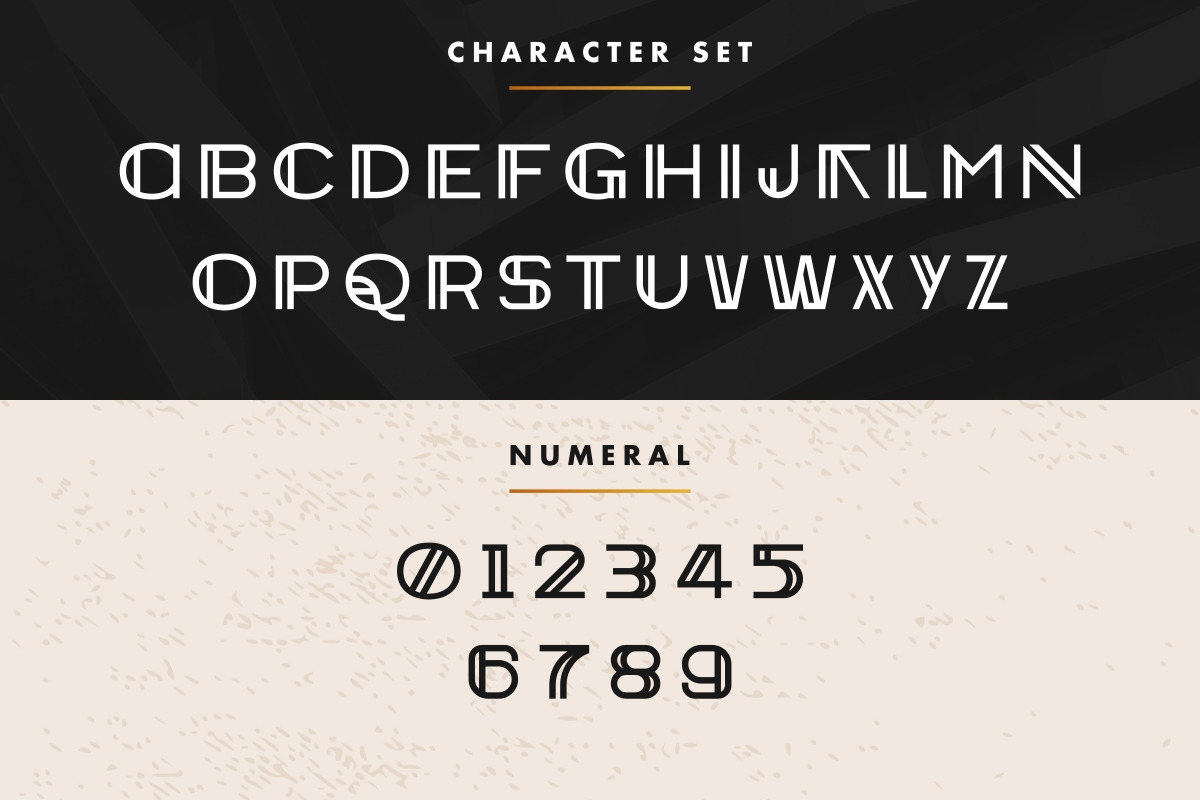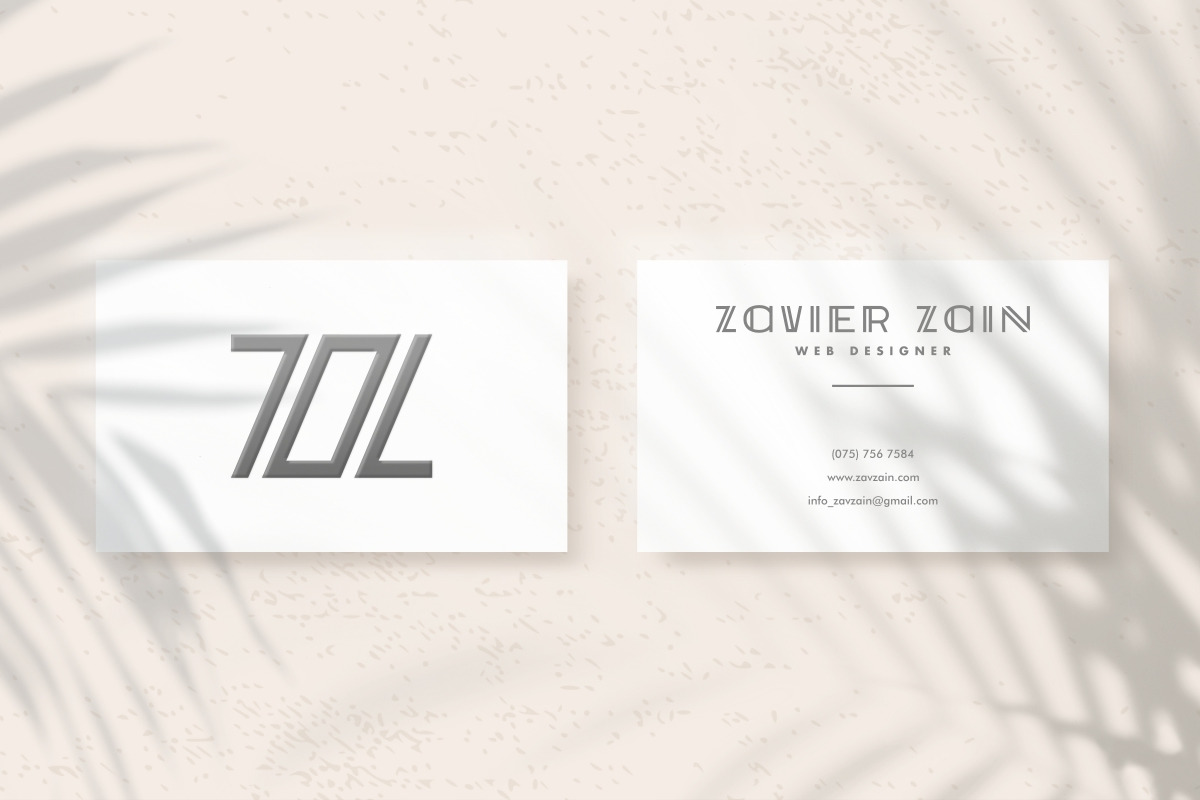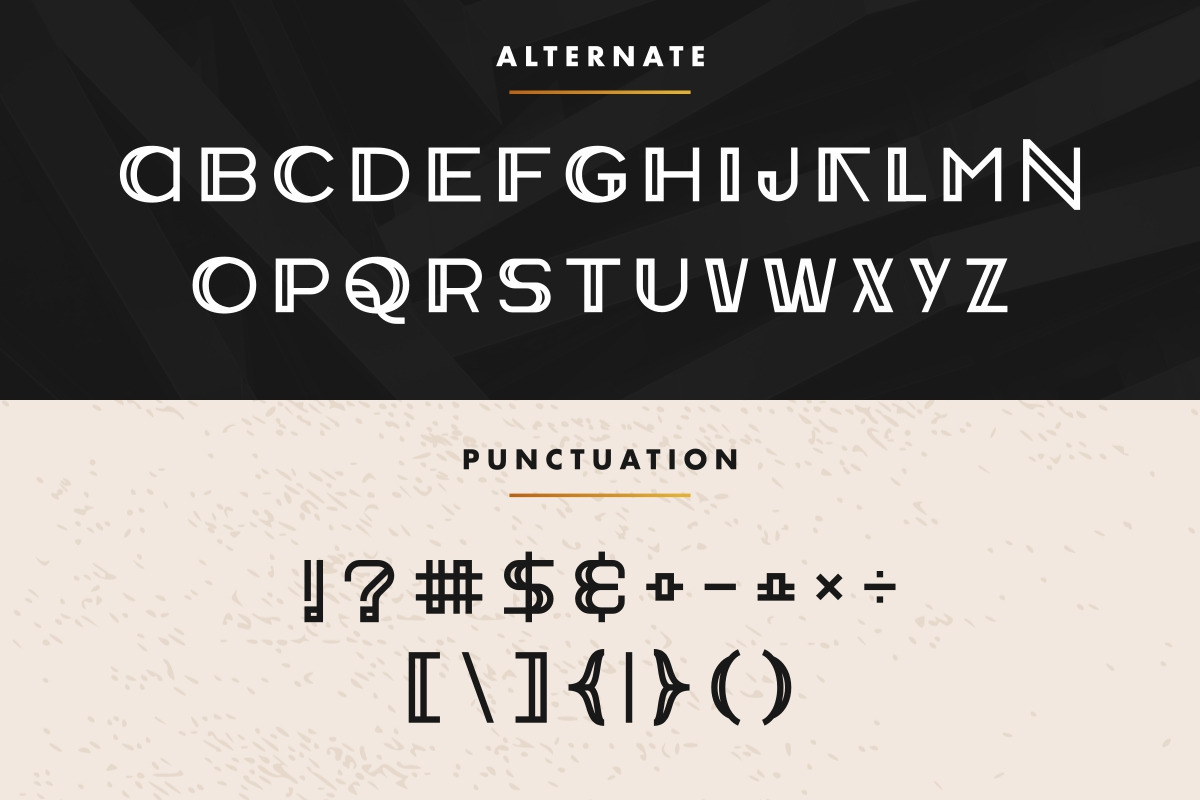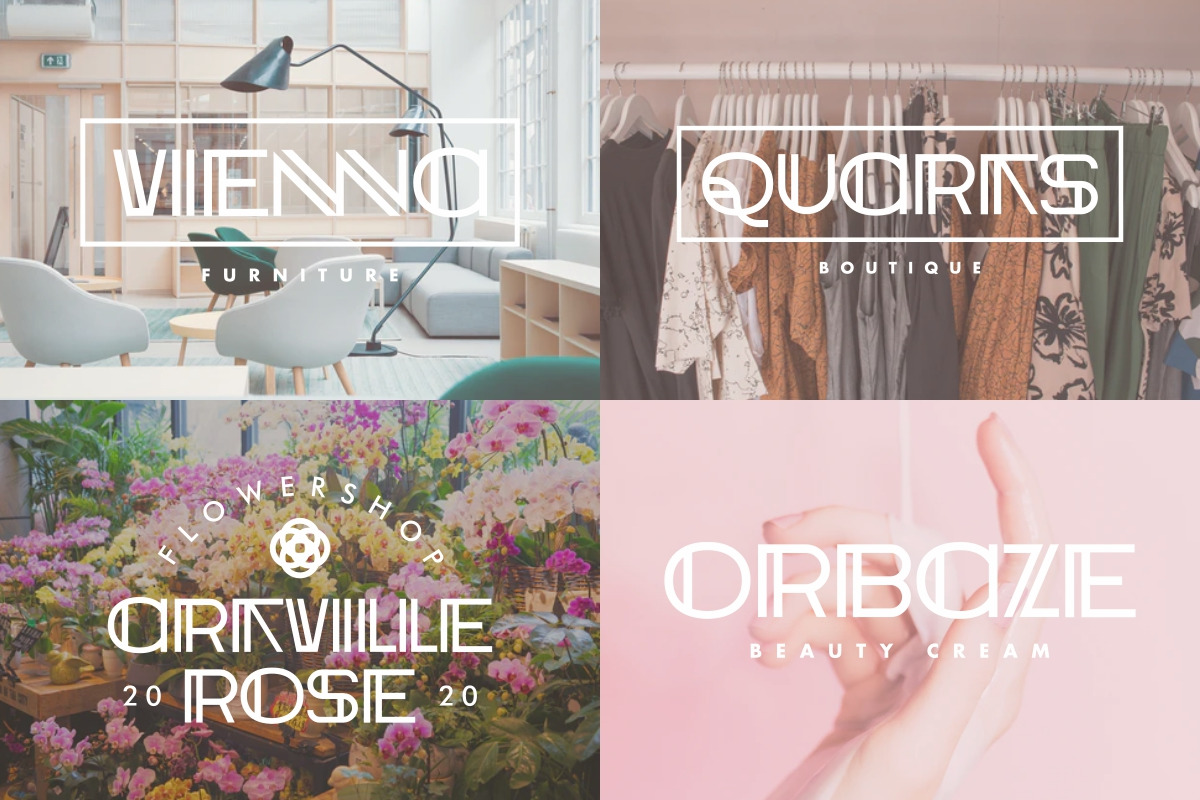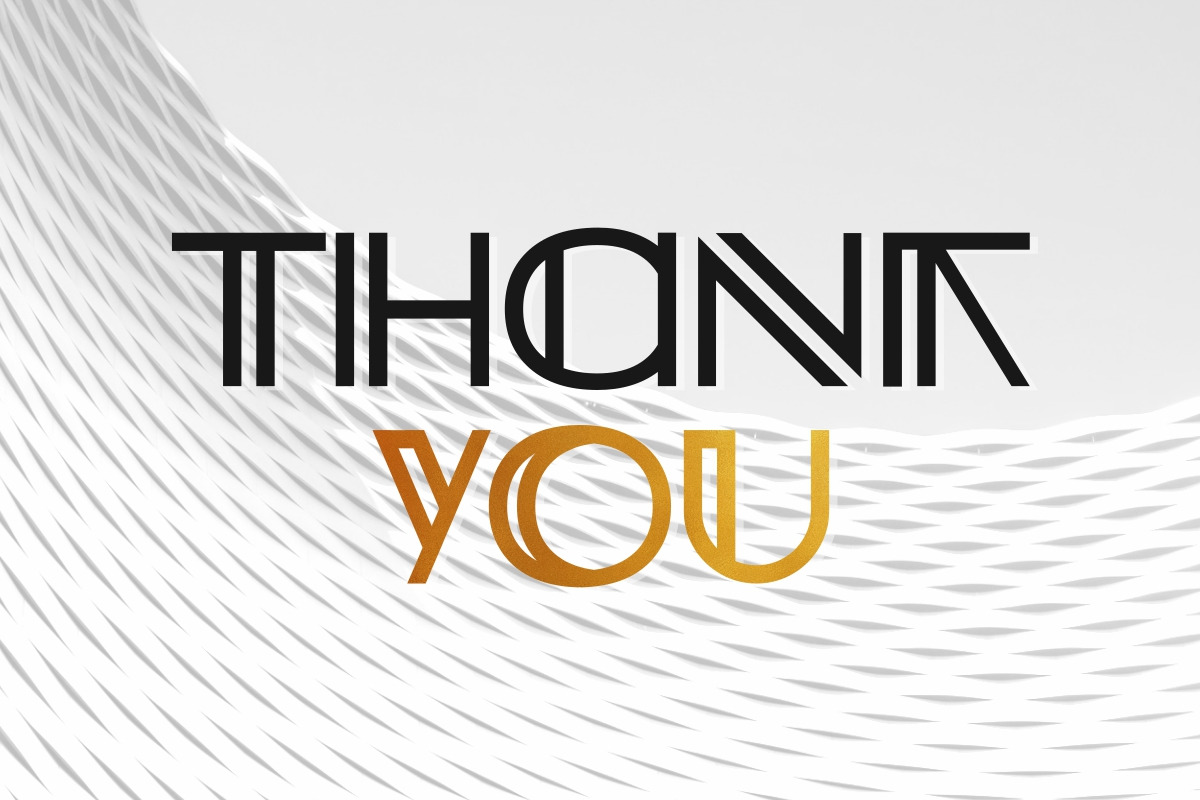
INTENCI Sans Font
INTENCI Font is a Display Sans Serif Font with minimal font style. The theme of these fonts are modern, elegant, luxury, glamour, classic and sophisticated.